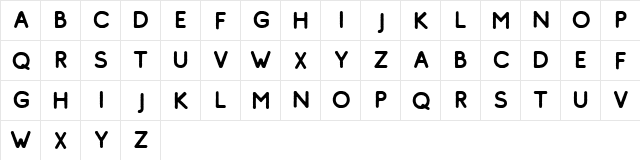
Comodo Free Vintage Regular
Design Context for Comodo Free Vintage Typeface
Comodo Free Vintage wears its vintage influences proudly, with letterforms that recall mid-century signage, classic packaging, and nostalgia-driven design.
Ideal for diner signage, record shop branding, 70s/80s-themed projects, and heritage product labels.
Font Pairing: Combine Comodo Free Vintage with a simple slab or neutral sans — period-accurate companions reinforce the vintage feel without competing for attention.
Pro Tip: Lean into Comodo Free Vintage's period character by pairing it with aged paper textures, muted colour palettes, and vintage illustration styles.